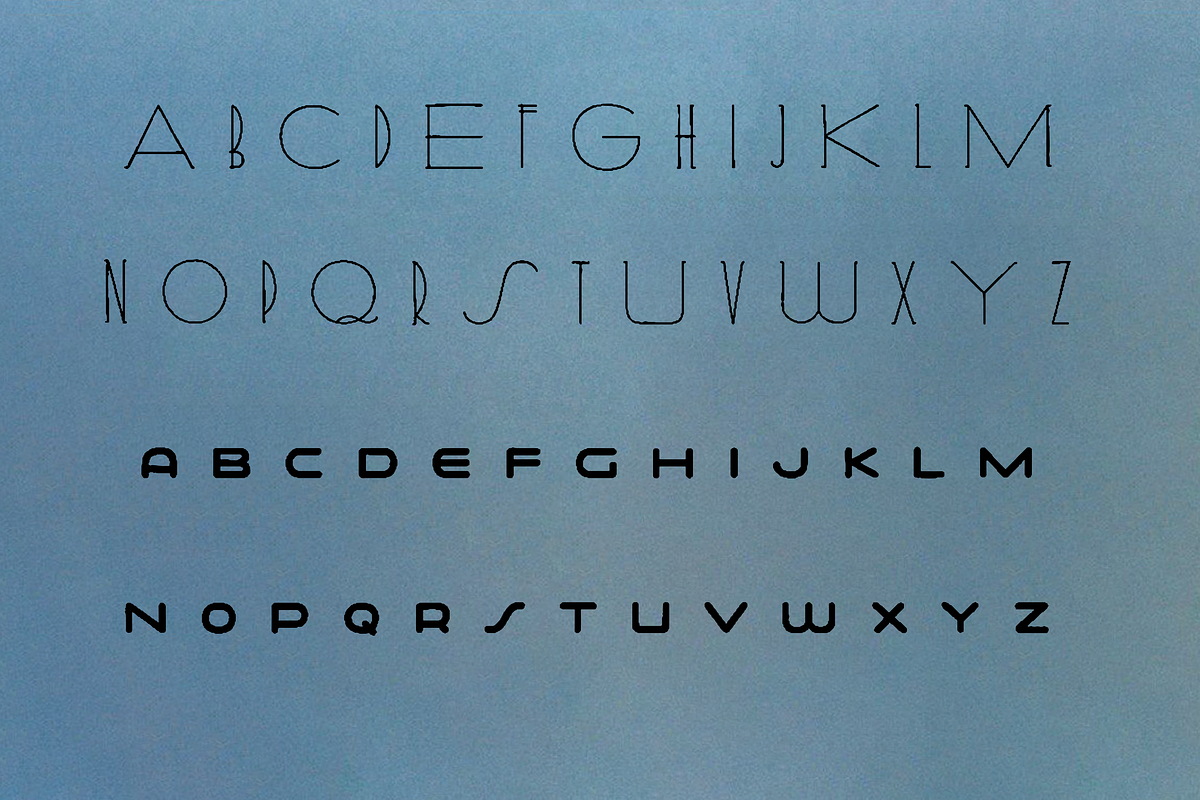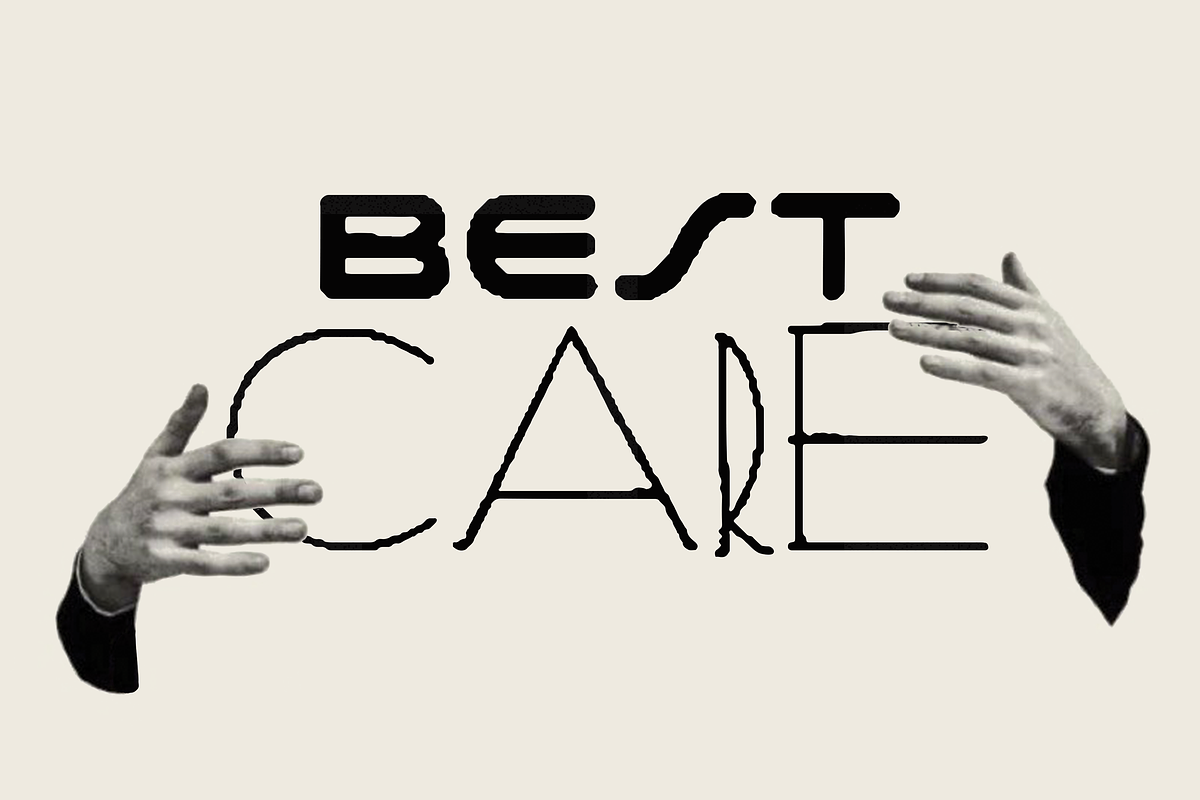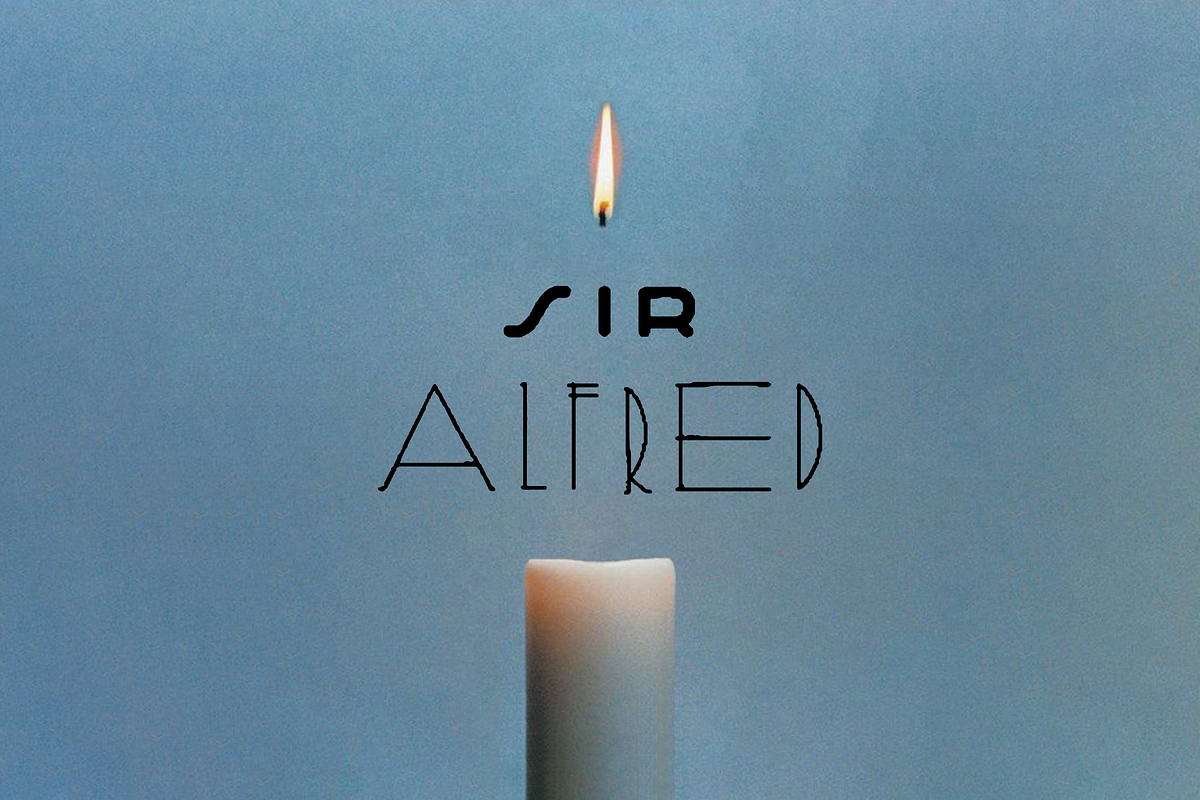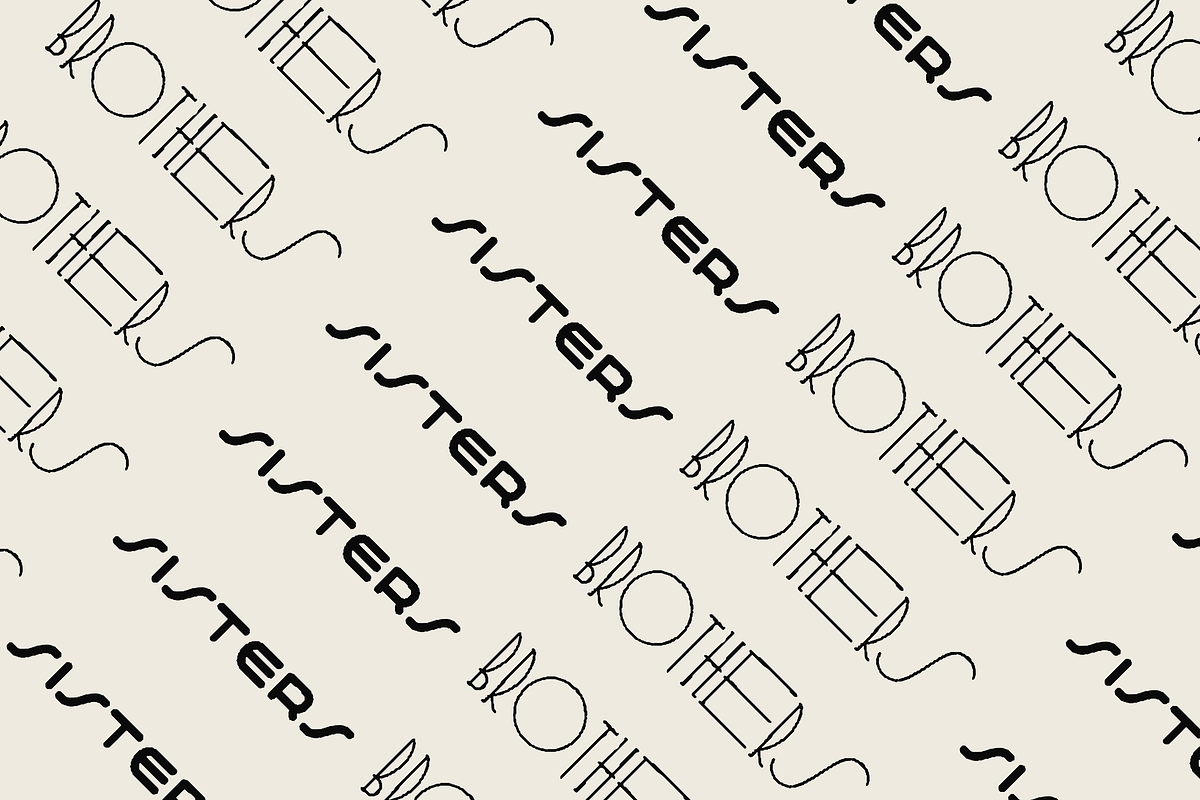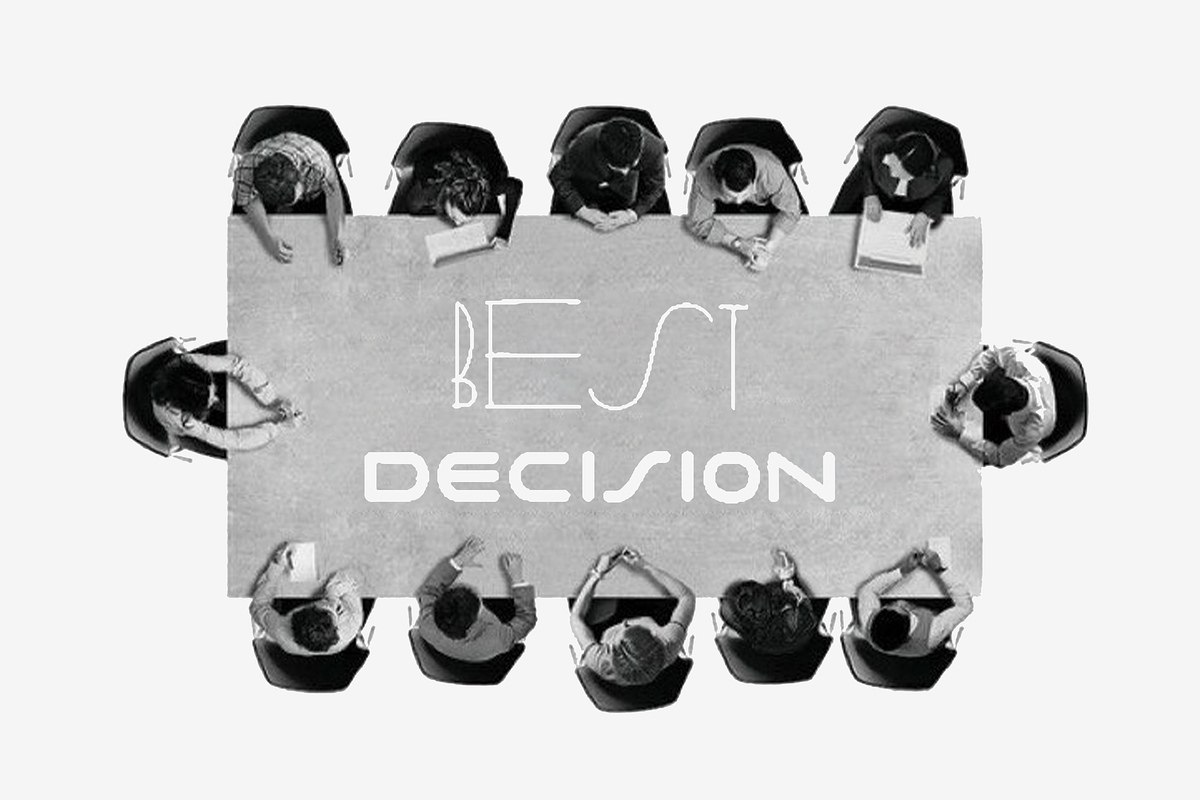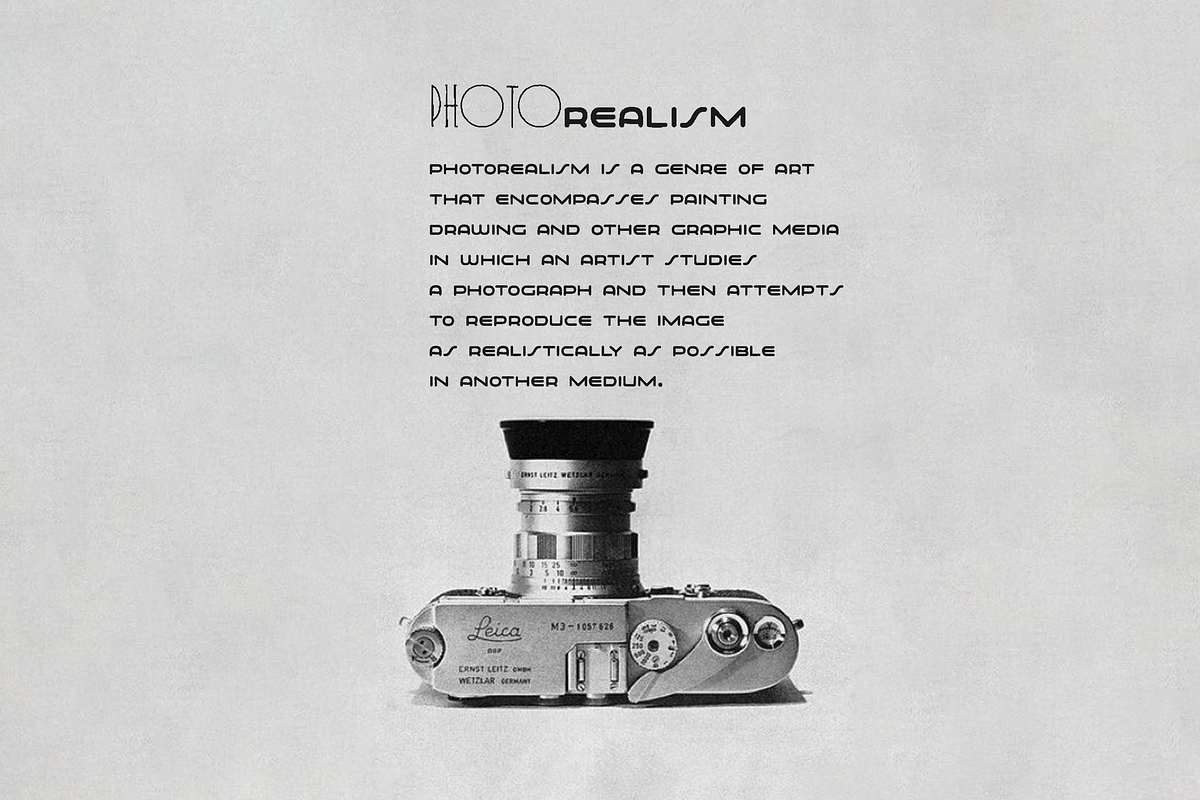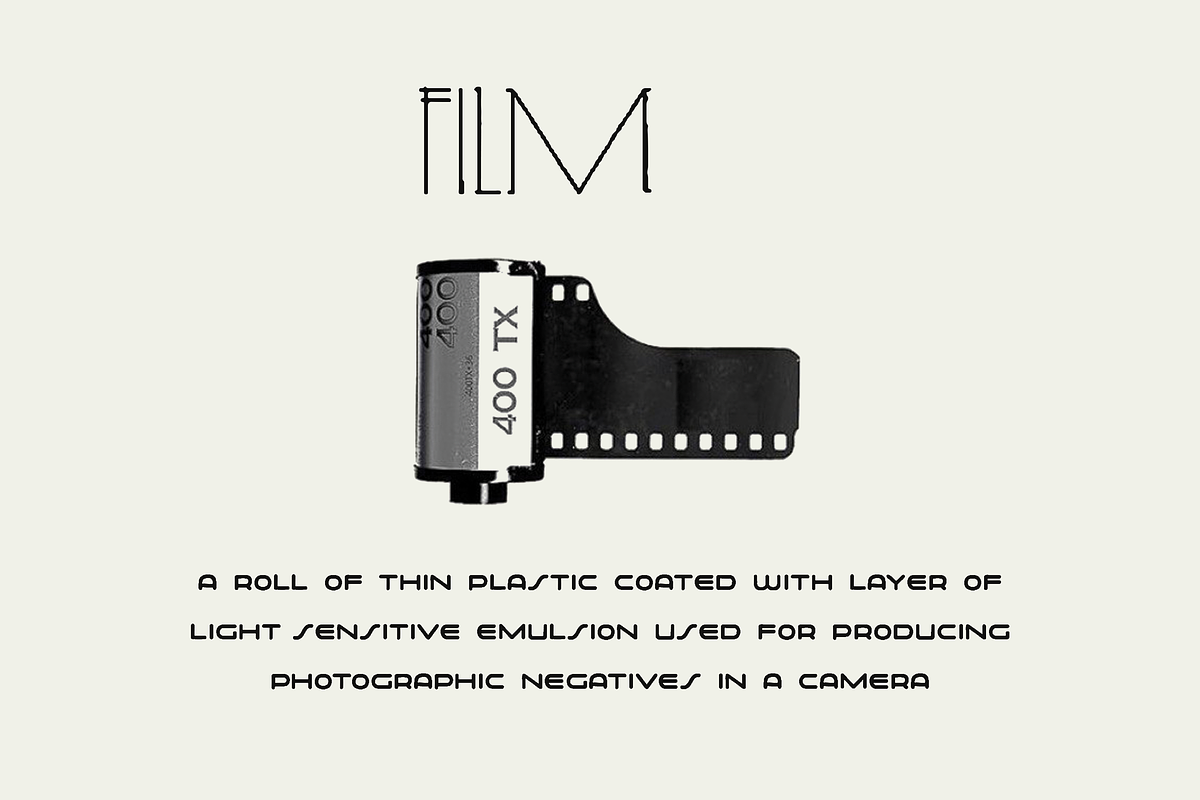
Sir Alfred Elegant & Stylish Font
Sir Alfred Font – Elegant & Stylish Typeface for Premium Designs
Meet Sir Alfred – a luxury serif & sans serif duo font that combines timeless elegance with modern sophistication. Perfect for logos, branding, packaging, and editorial designs, this handcrafted typeface adds a touch of class to any project.
Why Choose Sir Alfred?
- Exclusive & Unique – Stand out with a high-end, custom-designed font
- Versatile Use – Ideal for luxury brands, wedding invitations, magazines, and more
- Perfect Readability – Beautifully balanced serifs and smooth curves for a polished look